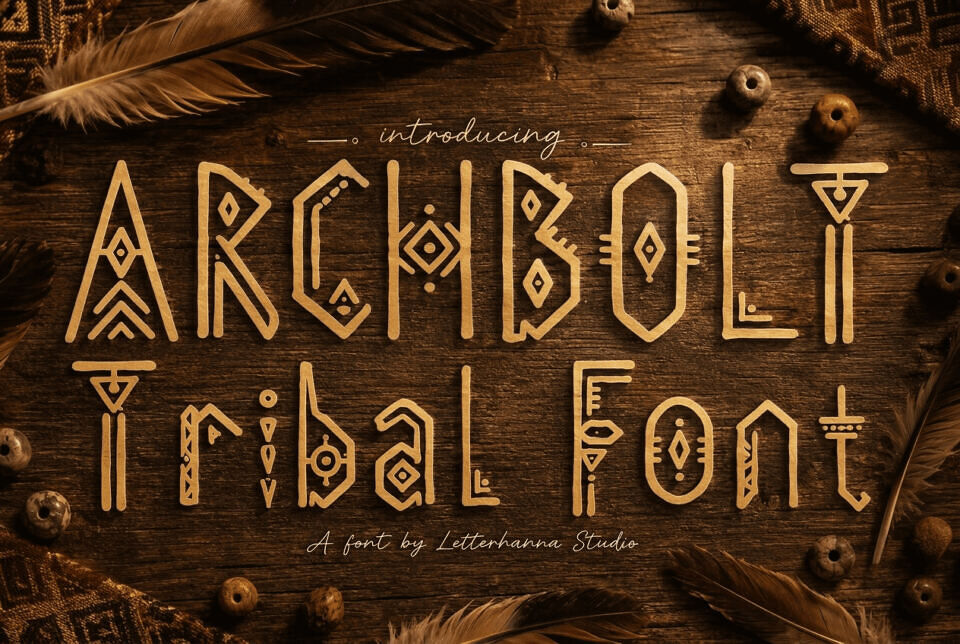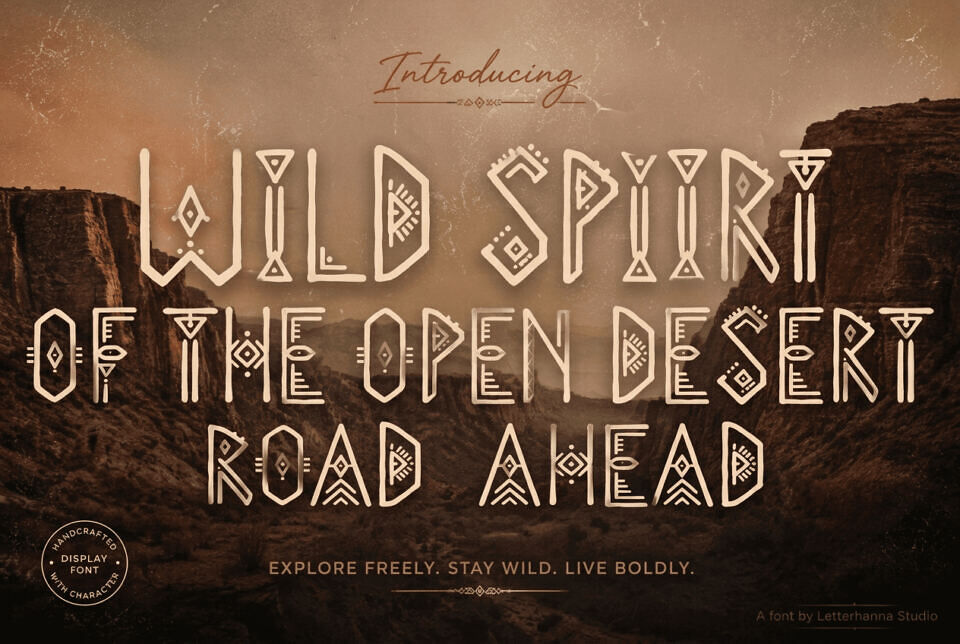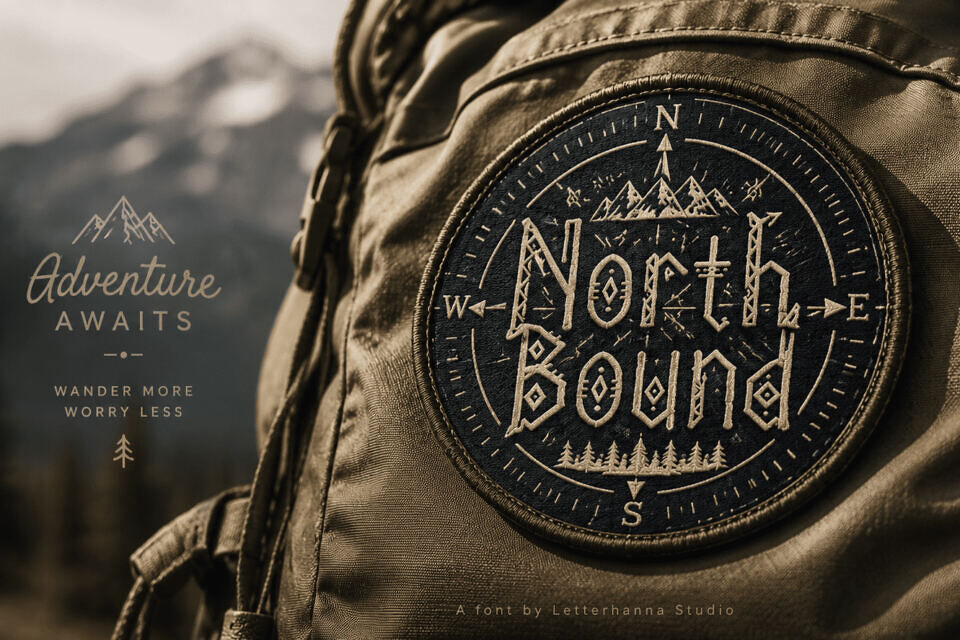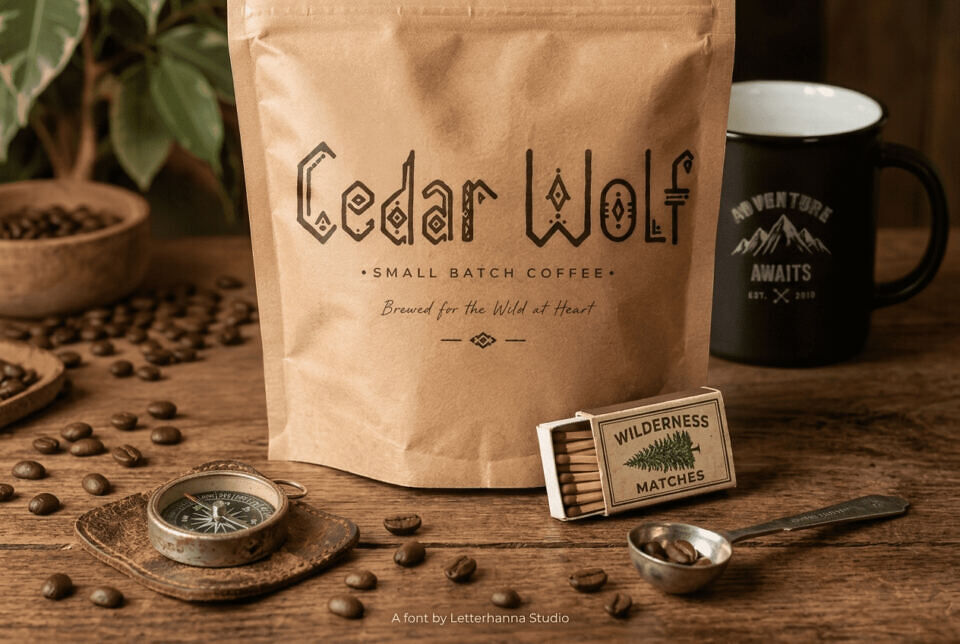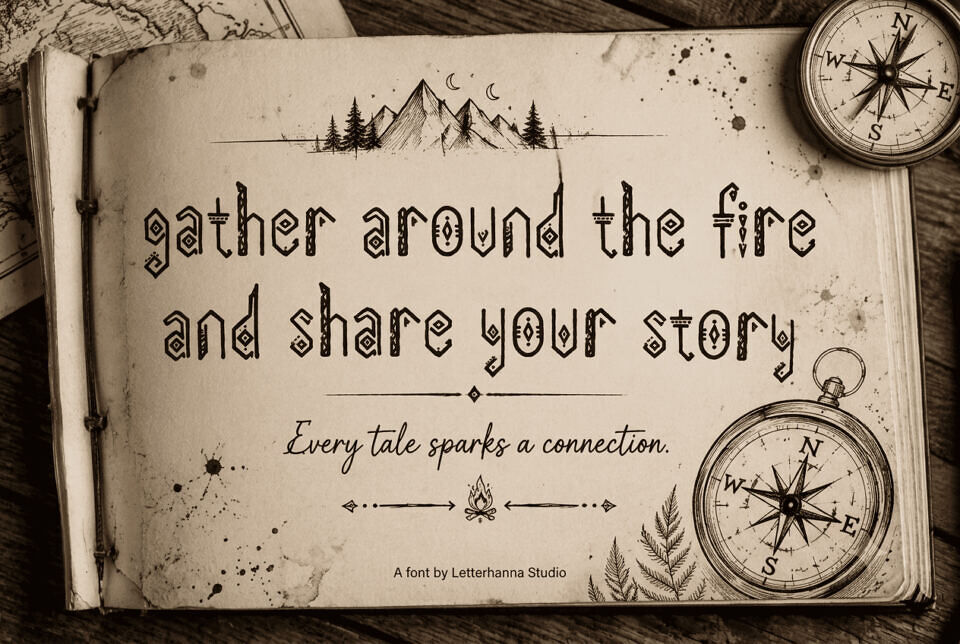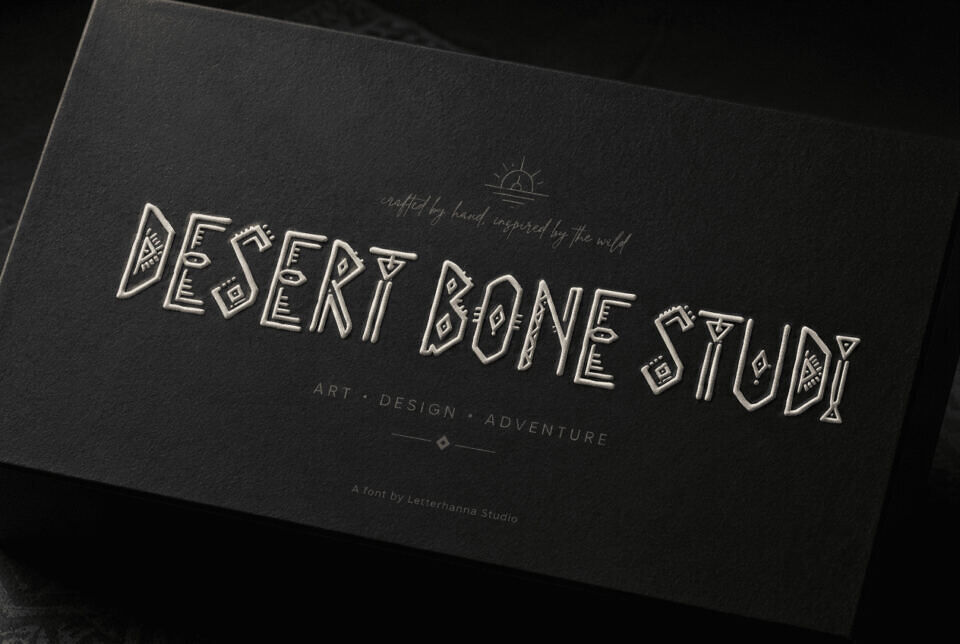
Archbolt Font
Archbolt is a tribal display font inspired by carved symbols, rustic craftsmanship, and ancient decorative forms. Its sharp angles, hand-etched details, and distinctive accents create a powerful, adventurous personality.
Ideal for logos, posters, packaging, apparel, outdoor branding, tattoo designs, and vintage signage, Archbolt works especially well with earthy colors and distressed textures. The font includes uppercase and lowercase characters, making it suitable for striking headlines, product names, and memorable visual identities.